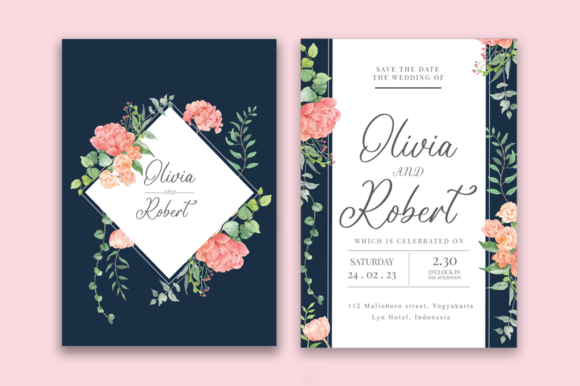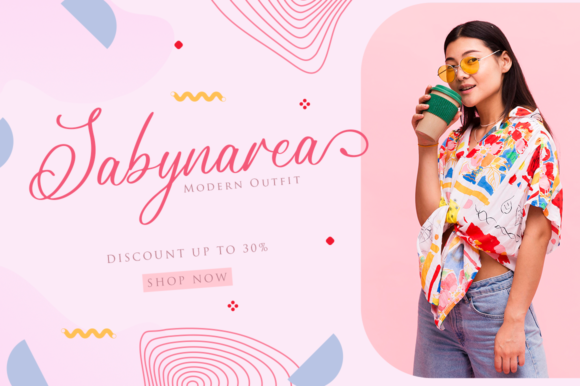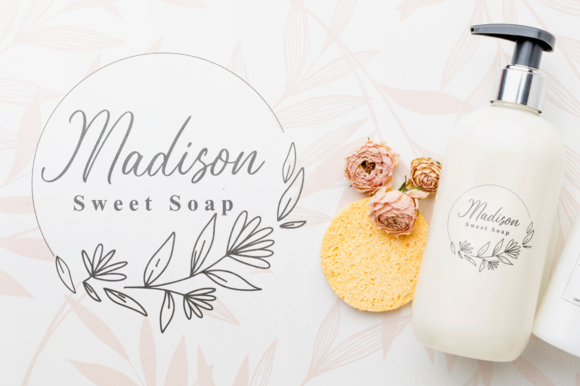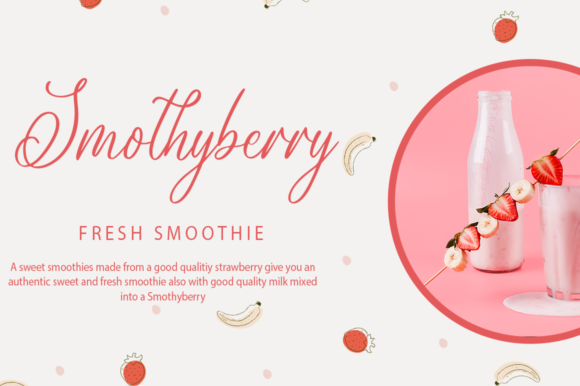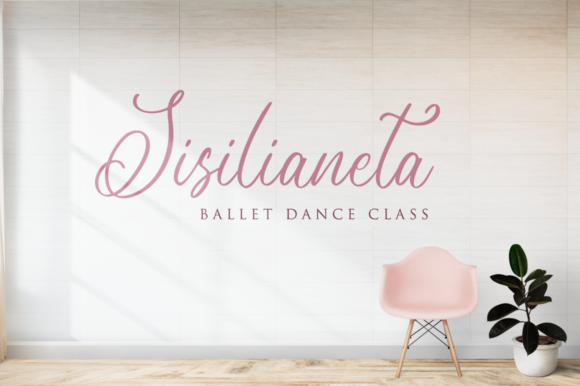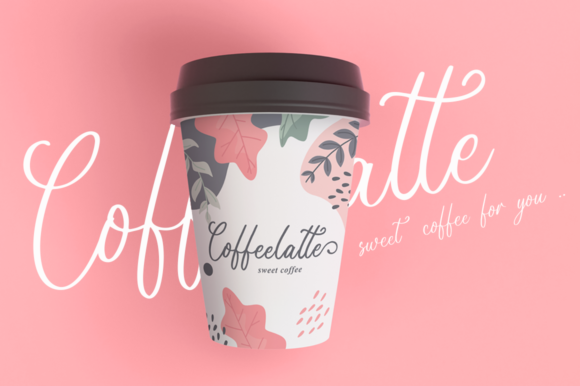
Introducing Angelica Font: A Delicate and Elegant Handwritten Script
Are you a designer or crafter looking for a beautiful and versatile font to elevate your creative projects? Look no further than Angelica Font, a stunning handwritten script that exudes elegance and sophistication. In this article, we’ll explore the features and benefits of Angelica Font, and why it’s a must-have for any creative professional.
A Delicate and Flowing Script
Angelica Font is a delicate, elegant, and flowing handwritten font that is sure to capture the hearts of designers and crafters alike. Its beautiful and well-balanced characters make it perfect for a wide range of designs, from wedding invitations and party decor to branding and packaging. Whether you’re creating a romantic and whimsical design or a modern and sleek one, Angelica Font is the perfect choice.
One of the standout features of Angelica Font is its PUA (Private Use Area) encoding. This means that you can access all of the glyphs and swashes with ease, giving you complete creative control over your designs. With PUA encoding, you can easily access alternative characters, ligatures, and swashes, allowing you to add a personal touch to your designs.
Perfect for a Wide Range of Designs
Angelica Font is an incredibly versatile font that matches a wide pool of designs. Its elegant and flowing script makes it perfect for:
- Party decor and event branding
- Branding and packaging
- Digital graphics and social media assets
Why Choose Angelica Font?
So why choose Angelica Font over other handwritten scripts? Here are just a few reasons:
- Unique and elegant design: Angelica Font has a unique and elegant design that will set your designs apart from the rest.
- Highly versatile: Angelica Font is perfect for a wide range of designs, making it a great addition to any design library.
- PUA encoded: With PUA encoding, you can easily access all of the glyphs and swashes, giving you complete creative control over your designs.
Tips for Using Angelica Font
Here are a few tips for using Angelica Font in your designs:
- Pair with contrasting fonts: Pair Angelica Font with contrasting fonts to create visual interest and hierarchy.
- Experiment with swashes: Use the swashes and glyphs to add a personal touch to your designs.
- Use for headlines and titles: Angelica Font is perfect for headlines and titles, where its elegant and flowing script can really shine.
In conclusion, Angelica Font is a beautiful and versatile handwritten script that is perfect for designers and crafters looking to elevate their creative projects. With its elegant and flowing design, PUA encoding, and high level of versatility, Angelica Font is a must-have for any creative professional. Whether you’re creating wedding invitations, branding, or packaging, Angelica Font is the perfect choice.